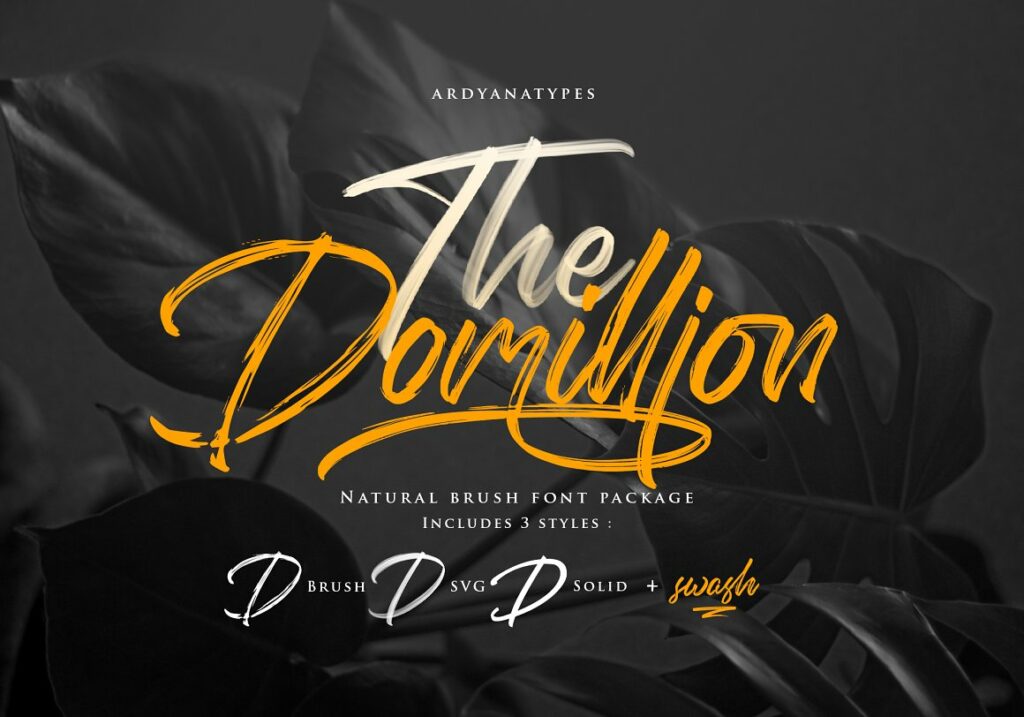
Domillion Font
Domillion Brush Font is made with natural hand scratches that are perfect for beautifying your design. Domillion comes with 3 variations of accents, submitted brush, SVG, and Clean, each of which has its own charm.
Domillion is the perfect choice for posters, signatures, logos, quotes, album covers, business cards, product designs, and other design projects with an elegant charm that is sharp, classy, easy to read, stylish, and unforgettable.
The Domillion Brush Script Font